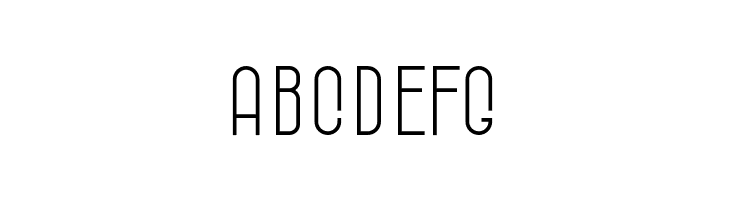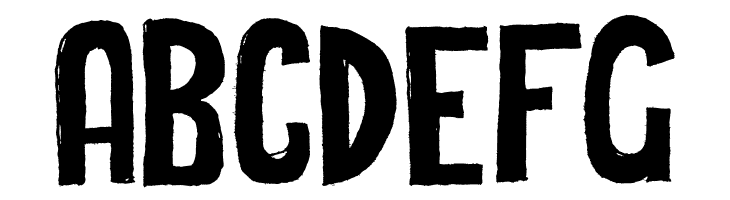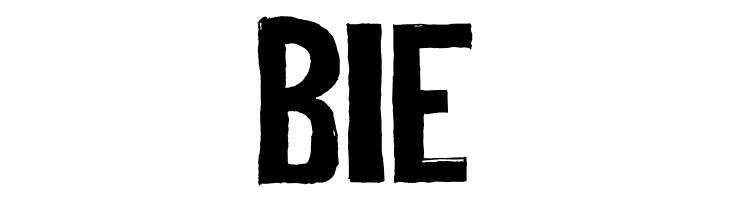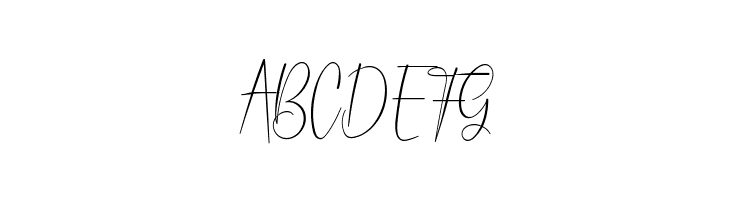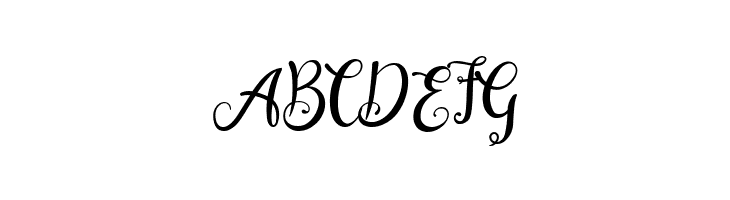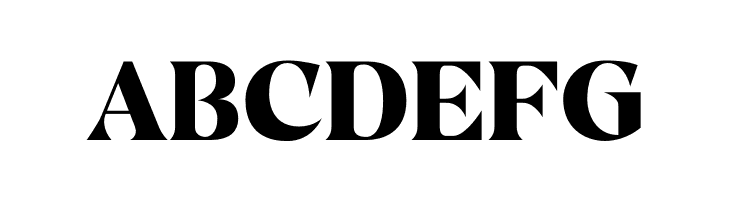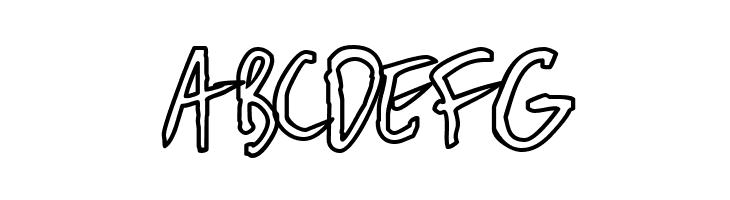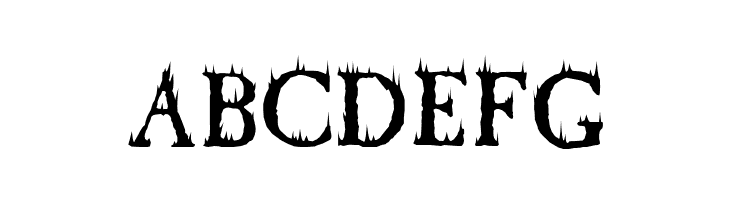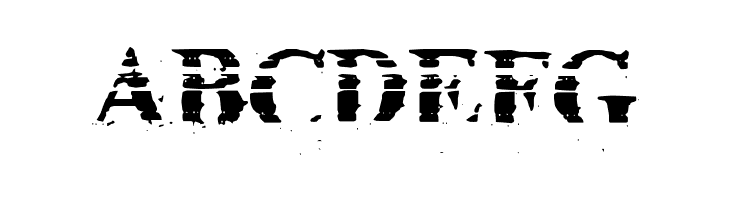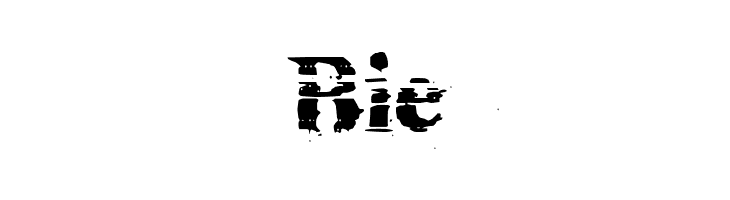
• chayla
An elegant script font with ornate swashes and flowing cursive style.
• Chayla lovely
A whimsical script font with elegant, flowing letters and delicate strokes.
• Chayle
A bold serif font with a modern twist, featuring strong, commanding characters.
• Chayotologi
Abstract, symbolic, and geometric display font.
• Chazalia Regular
A sleek, modern font with elongated, narrow characters and a minimalist design.
• Cheap Fire
• Cheap Ink killed my Printer
A distressed, grunge-style font with a bold, stencil-like appearance.
• Cheap Pizza
• Cheap Potatoes Black
A bold, hand-painted style font with a dynamic and textured appearance.
• Cheap Seven Inches
A playful, bold handwritten font with uneven strokes and a quirky style.